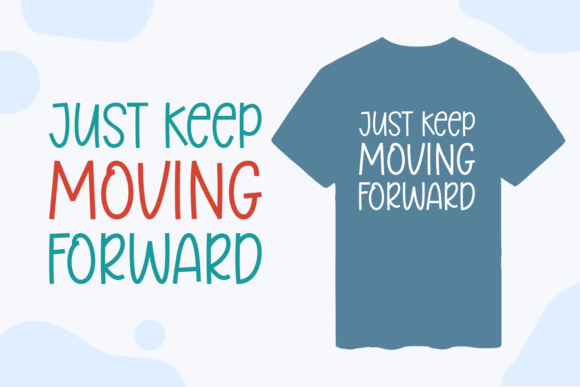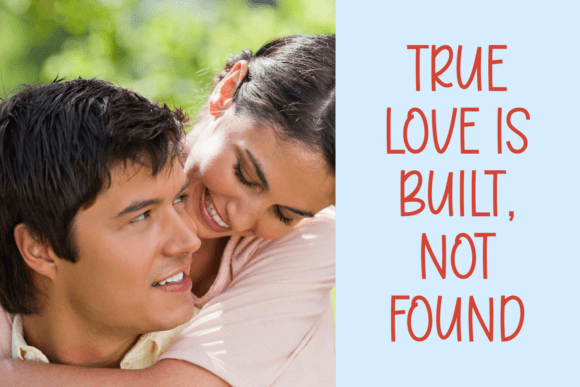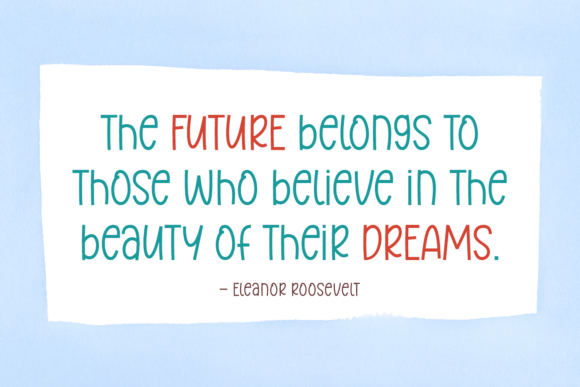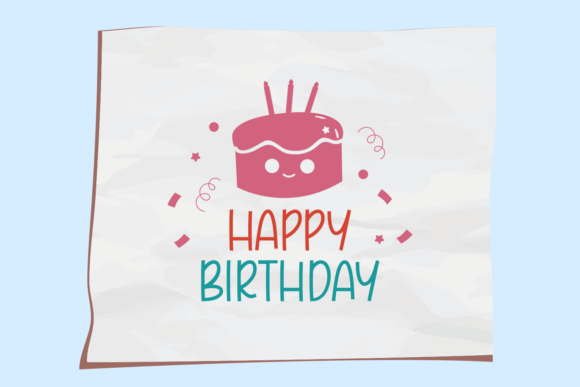
Introducing Guys Mover Font: The Perfect Casual Handwritten Font for Your Design Projects
Are you tired of using the same old fonts for your design projects? Do you want to add a touch of personality and friendliness to your work? Look no further than Guys Mover Font, a casual handwritten font that’s perfect for projects that need a relaxed, playful vibe.
What is Guys Mover Font?
Guys Mover Font is a beautiful, casual handwritten font that’s designed to bring a sense of warmth and approachability to your design projects. Its fluid strokes and natural, organic feel make it perfect for a wide range of applications, from personal notes and invitations to casual branding and informal design work.
Key Features of Guys Mover Font
- Relaxed and Playful Vibe: Guys Mover Font has a laid-back, casual feel that’s perfect for projects that need a friendly, approachable touch.
- Fluid Strokes: The font features fluid, natural strokes that give it a organic, handwritten feel.
- Perfect for Informal Design Work: Guys Mover Font is ideal for personal notes, invitations, casual branding, and informal design work.
- Easy to Read: The font is clear and easy to read, making it perfect for body text and headings.
Who is Guys Mover Font for?
Guys Mover Font is perfect for designers, crafters, and anyone who wants to add a touch of personality to their design projects. Whether you’re working on a personal project or a client’s design brief, this font is sure to bring a smile to people’s faces.
What Can You Use Guys Mover Font For?
The possibilities are endless with Guys Mover Font. Here are some ideas to get you started:
- Personal Notes and Invitations: Use Guys Mover Font to add a personal touch to your notes and invitations.
- Casual Branding: Use the font to create a friendly, approachable brand identity for your business or personal project.
- Informal Design Work: Guys Mover Font is perfect for informal design work, such as social media graphics, blog posts, and more.
- Handmade Crafts: Use the font to add a personal touch to your handmade crafts, such as greeting cards, gift tags, and more.
Why Choose Guys Mover Font?
There are many fonts to choose from, but Guys Mover Font stands out from the crowd. Here are just a few reasons why:
- Unique and Quirky: Guys Mover Font has a unique, quirky feel that’s sure to make your design projects stand out.
- Easy to Use: The font is easy to use and pairs well with a wide range of other fonts.
- High-Quality Design: Guys Mover Font is designed to high standards, ensuring that it looks great in any design project.
If you’re looking for a casual handwritten font that’s perfect for projects that need a friendly, approachable touch, look no further than Guys Mover Font. With its fluid strokes, natural feel, and relaxed vibe, this font is sure to bring a smile to people’s faces. Whether you’re a designer, crafter, or just someone who wants to add a personal touch to their design projects, Guys Mover Font is the perfect choice.